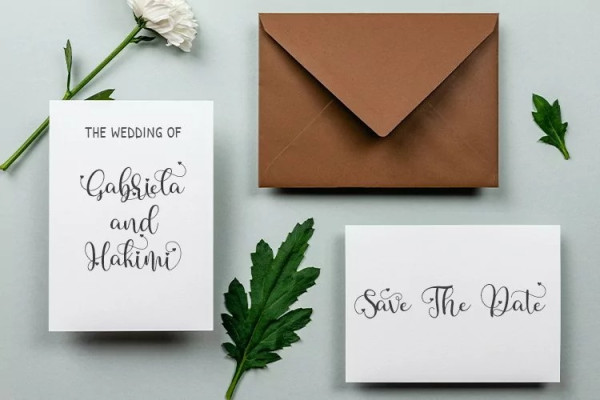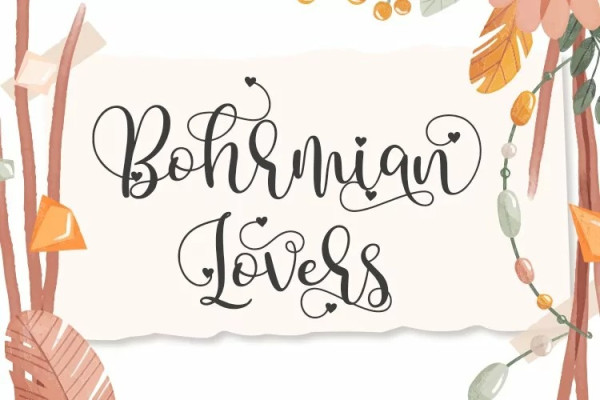
Melodica Font
Melodica Font is a sweet, whimsical, flowing and thin script font. Featuring characters that dance along the baseline, this font will add a luxury spark to any design project that you wish to create!